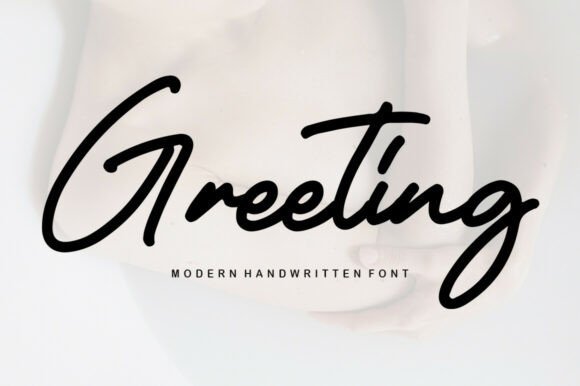
Greeting Font: The Perfect Blend of Elegance and Whimsy
There’s something special about seeing a handwritten message on a beautifully designed card or invitation. It’s a personal touch that sets the tone for a memorable event, and it’s often the first thing that catches our eye. For designers, finding the right font to convey this sense of warmth and personality can be a challenge. But what if I told you that there’s a font that can bring your designs to life with its delicate, elegant, and flowing handwritten style?
Meet the Greeting Font, a versatile and beautiful typeface that’s perfect for a wide range of designs, from wedding invitations to birthday cards. With its well-balanced characters and flowing lines, this font is sure to add a touch of sophistication and whimsy to any project. Whether you’re a seasoned designer or just starting out, the Greeting Font is a valuable addition to your toolkit.
Greeting Font Key Features
- Unique Characteristic: The font features a unique, hand-drawn design with subtle flair and texture, adding a personal touch to digital and print materials.
Greeting Font Review
Greeting Font is an eye-catching typeface that excels in creating a sense of warmth and friendliness ✨. The cursive script and rounded edges give it a playful and approachable feel, making it perfect for various greeting card designs, social media posts, and even packaging labels. The font’s versatility is another plus, allowing users to experiment with different layouts and styles to match their brand’s personality.
However, there are some limitations to consider ⚠️. Firstly, the font’s bold weight may be too overwhelming for certain designs, making it difficult to balance with other elements. Additionally, some users may find the font’s irregularities and subtle inconsistencies in letter spacing and kerning distracting. Furthermore, the font’s cursive nature can sometimes make it challenging to read, especially for those with visual impairments.
- Warm and inviting aesthetic ✨
- Perfect for greeting cards, social media, and packaging labels
- Versatile and adaptable to various design styles
- Bold weight can be overwhelming in certain designs ⚠️
- Irregularities in letter spacing and kerning may be distracting
- May be challenging to read for those with visual impairments
In conclusion, Greeting Font is a great choice for designers looking to add a touch of warmth and friendliness to their projects. While it may have some limitations, its versatility and adaptability make it a valuable addition to any design toolkit.
Getting the Most Out of Greeting Font
To get the most out of Greeting Font, experiment with different font sizes, colors, and styles to create a unique look. You can also use the font in combination with other design elements, such as graphics and shapes, to add visual interest to your design.
The Greeting Font is commonly used for creating greeting cards, invitations, and other social media graphics. It can also be used for creating presentations, documents, and other business materials that require a professional and friendly tone.